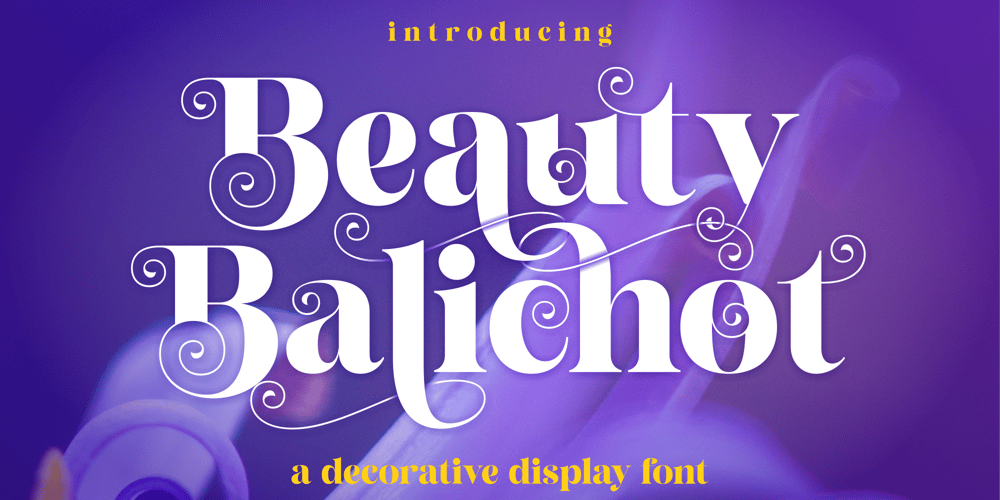
Beauty Balichot Font Family was designed by Firman Maulana and published by Agny Hasya Studio. Beauty Balichot contains 2 styles and family package options. Beauty Balichot is a Modern Serif Display Font combined with decorative ornaments that make it unique, luxurious, elegant, and versatile. Come in 2 (two) styles (regular & italic) and is created with glyph variations like alternates and ligatures. Featured with Uppercase and Lowercase, Numeral and Punctuation, Multilingual Support, and Opentype Features.Perfect for your design projects like logos, branding, advertising, product designs, stationery, magazine designs, book/cover title designs, photography, art quotes, wedding designs, fashion designs, special events, labels, product packaging, and more.